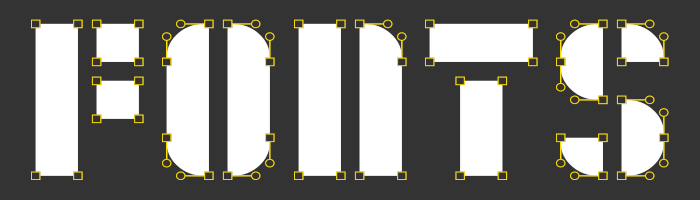
Will Fontstructor have these kind of handles? Only time will tell )
Thanks! I am unable to upload an image without comment though. This sample is created by layering handles on top of contours.
A clever, witty and well executed visual pun!
I'm wondering how this is possible?
Thanks! I am unable to upload an image without comment though. This sample is created by layering handles on top of contours.
A clever, witty and well executed visual pun!
I'm wondering how this is possible?